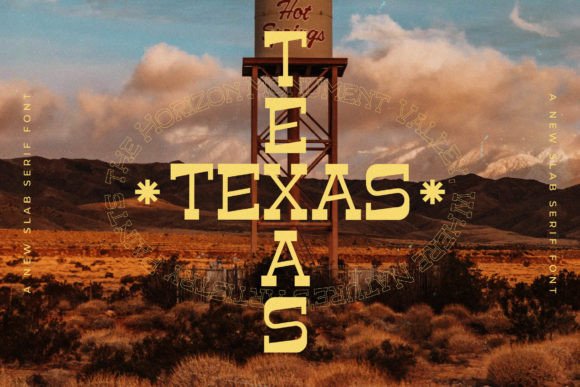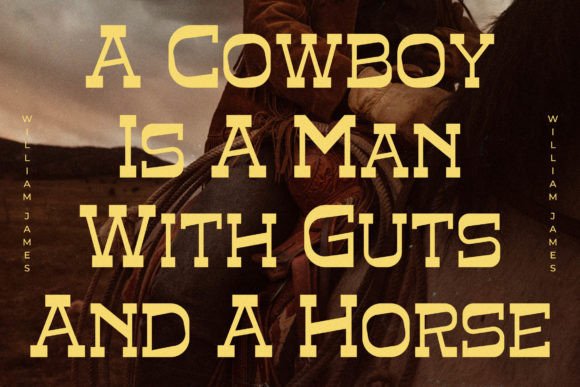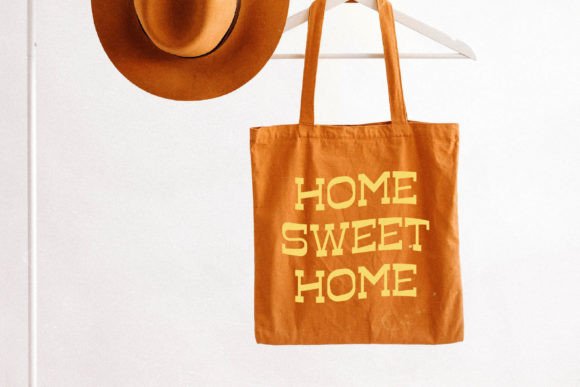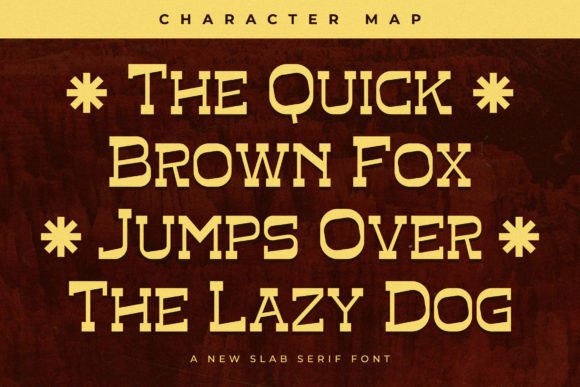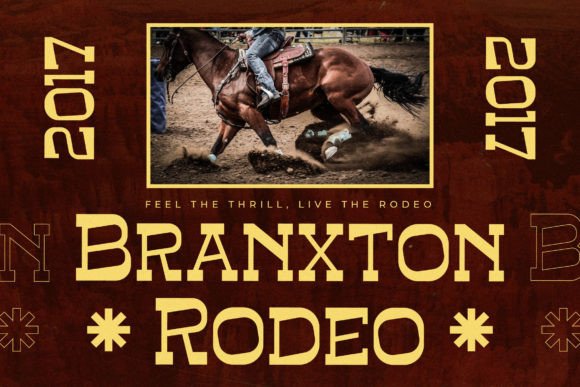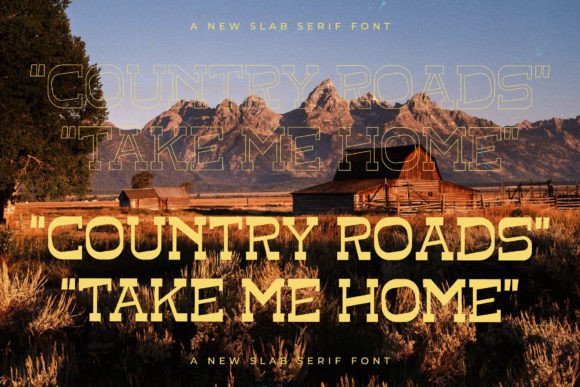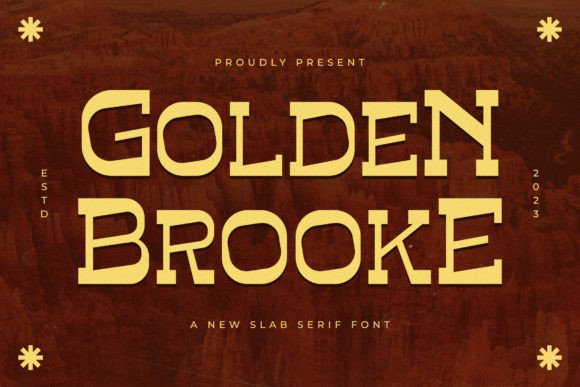
Introducing Golden Brooke Font: A Wild West-Inspired Elegance
In the realm of typography, fonts play a pivotal role in conveying the essence and aesthetic of a brand, product, or creative project. Among the myriad of typefaces available, the Golden Brooke font stands out as a unique and captivating choice for designers and crafters alike. Inspired by the rugged elegance of the Wild West, Golden Brooke is a rugged slab serif font that brings a touch of luxury and sophistication to various design applications.
The Inspiration Behind Golden Brooke
Golden Brooke draws its inspiration from the mystique of the Wild West, an era characterized by its rugged landscapes, cowboys, and a sense of unbridled freedom. This font encapsulates the essence of that era, translating its ruggedness into a sophisticated and elegant typeface. The result is a font that is not only reminiscent of the past but also adaptable to contemporary design needs.
Design Characteristics of Golden Brooke
Golden Brooke is defined by its rugged slab serif characteristics. Slab serif fonts are known for their robust and dependable appearance, often evoking a sense of solidity and trustworthiness. The serifs, or the small lines at the ends of the strokes that make up the letters, in Golden Brooke are distinctly slab-like, providing a strong and sturdy look to the font. This makes it particularly suitable for designs that require a bold statement, such as luxury logos, high-end fashion branding, and elegant book or movie titles.
Versatility of Golden Brooke
One of the key advantages of the Golden Brooke font is its versatility. Its unique blend of ruggedness and elegance makes it suitable for a wide range of design applications. Here are some of the areas where Golden Brooke can truly shine:
• Elegant & Luxury Logos: The font’s sophisticated look makes it perfect for luxury brands that want to convey a sense of high-end quality and elegance.
• Book or Movie Title Design: For filmmakers and authors, Golden Brooke can add a touch of class and allure to book covers and movie posters, especially for genres like westerns, dramas, and historical films.
• Fashion Brand: Fashion designers can leverage Golden Brooke to create stunning brand identities that stand out for their elegance and sophistication.
• Magazine: The font is well-suited for magazine titles, especially those focused on lifestyle, fashion, and entertainment.
• Clothes: For clothing brands, especially those dealing in luxury or western-inspired apparel, Golden Brooke can be a great choice for product labels and marketing materials.
• Lettering and Quotes: The aesthetic appeal of Golden Brooke makes it ideal for lettering projects and creating visually appealing quotes for social media, posters, or wall art.
Why Choose Golden Brooke?
In a world where typography can make or break a design, choosing the right font is crucial. Golden Brooke offers a unique combination of ruggedness and luxury, making it a rare find in the font world. Its ability to convey a sense of elegance and sophistication, while still standing out for its distinctive look, makes it a valuable asset for designers and crafters looking to leave a lasting impression.
Golden Brooke is more than just a font; it’s a design statement. Its roots in the Wild West, combined with its elegant and luxurious appearance, make it a versatile tool for a wide range of creative projects. Whether you’re a designer looking to create a stunning brand identity, a filmmaker aiming to craft an enticing movie poster, or a craftsperson working on a unique project, Golden Brooke is sure to meet your typographic needs with style and sophistication.